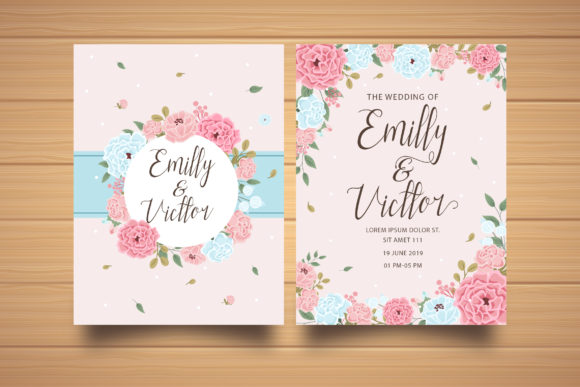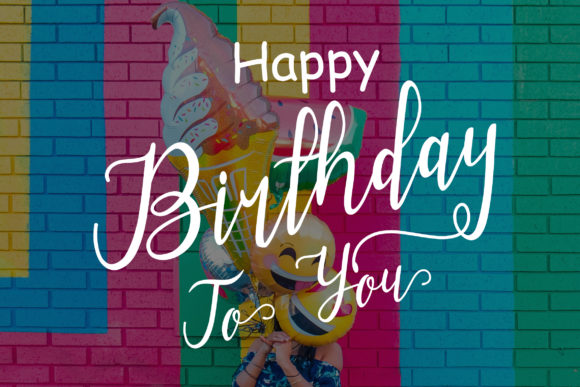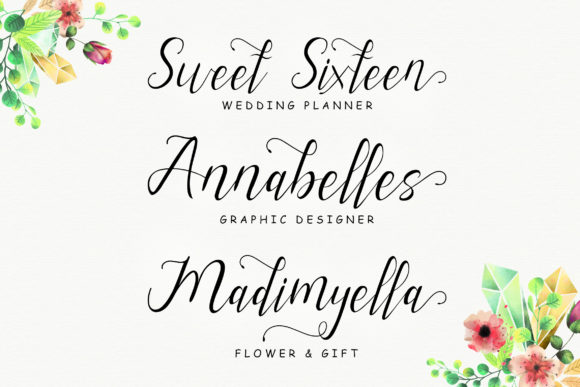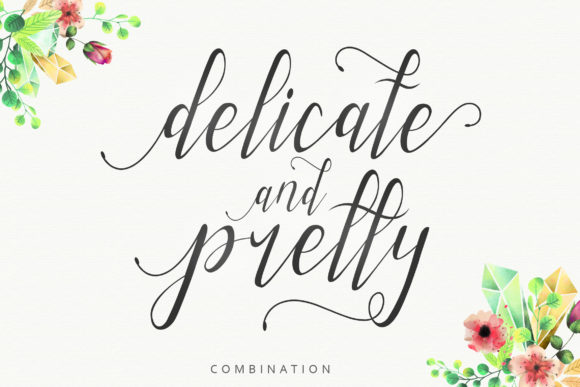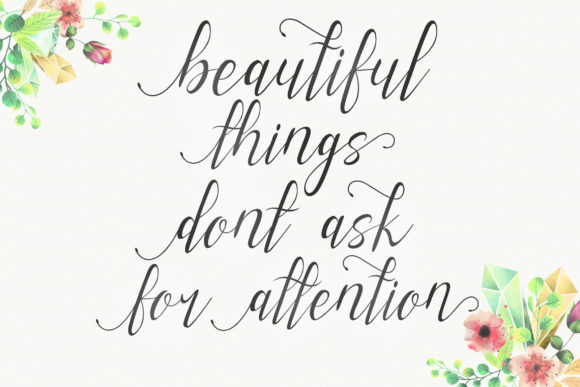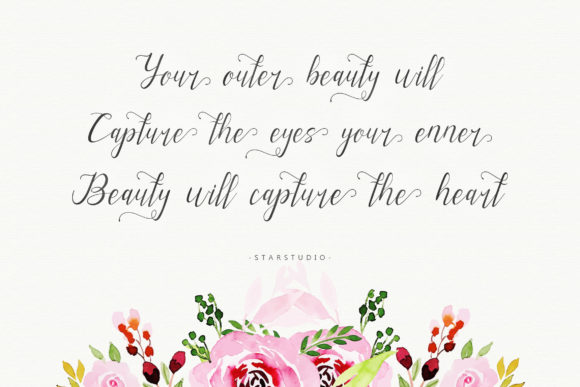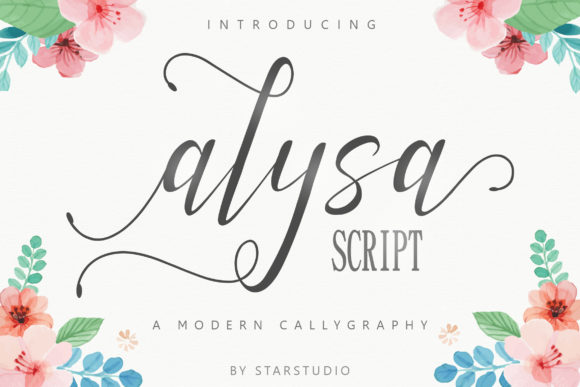
Alysa Script Font: Elevate Your Designs with Elegance and Sophistication
In the world of typography, script fonts hold a special place for their ability to add a touch of elegance, sophistication, and personal flair to any design. Among these, the Alysa Script Font stands out for its unique blend of elegance and playfulness, making it an ideal choice for designers and crafters looking to infuse their projects with a hand-lettered touch. In this article, we’ll dive deep into the features of the Alysa Script Font, its uses, and why it has become a go-to for creatives seeking to elevate their designs.
The Charm of Alysa Script Font
The Alysa Script Font is an elegant script typeface that exudes a sense of luxury and refinement. Its characters are designed with a super flirtatious baseline, which gives it a dynamic and eye-catching appeal. This distinctive feature makes Alysa perfect for a wide range of applications, from branding and logos to greeting cards, wedding stationery, and inspirational quotes. The font’s ability to convey a sense of authenticity and personal touch is what sets it apart from more traditional typefaces.
Key Features of Alysa Script Font
- Elegant and Refined Appearance: Alysa boasts a sophisticated look that can instantly elevate the aesthetic of any design.
- Hand-Lettered Touch: The font’s design mimics hand-lettering, providing a personal and unique feel to your projects.
- Versatility: Its flirtatious baseline and elegant flow make it suitable for a variety of design needs, from formal to casual.
- Easy to Read: Despite its elegant and cursive nature, Alysa maintains a high level of readability, making it perfect for both headings and body text.
Applications of Alysa Script Font
The versatility of the Alysa Script Font makes it a valuable asset for a wide array of design projects. Here are some of the most popular applications:
- Branding and Logos: Use Alysa to create a memorable brand identity that stands out with its elegance and charm.
- Greeting Cards and Invitations: Add a personal touch to your greeting cards, invitations, and thank you notes with this beautiful script font.
- Wedding Stationery: Alysa is perfect for wedding invitations, save the dates, and other wedding-related designs, offering a romantic and sophisticated feel.
- Quotes and Typography Art: The elegant flow of Alysa makes it an excellent choice for typography art and inspirational quotes, allowing the message to shine with style.
Why Choose Alysa Script Font?
In a sea of script fonts, Alysa stands out for several reasons:
- Unique Character: The super flirtatious baseline of Alysa gives it a unique personality that can make your designs instantly recognizable.
- High Versatility: Whether you’re working on a luxury brand or a whimsical craft project, Alysa can adapt to your design needs.
The Alysa Script Font is a powerful tool in the world of design, offering a perfect blend of elegance, sophistication, and playfulness. Its wide range of applications, from professional branding to personal craft projects, makes it a versatile and valuable asset for any designer or crafter. With Alysa, you can add a touch of authenticity and hand-lettered charm to your designs, setting them apart in a crowded digital landscape. Whether you’re looking to create stunning wedding stationery, captivating branding, or beautiful typography art, Alysa Script Font is an excellent choice that promises to elevate your designs to new heights of elegance and sophistication.